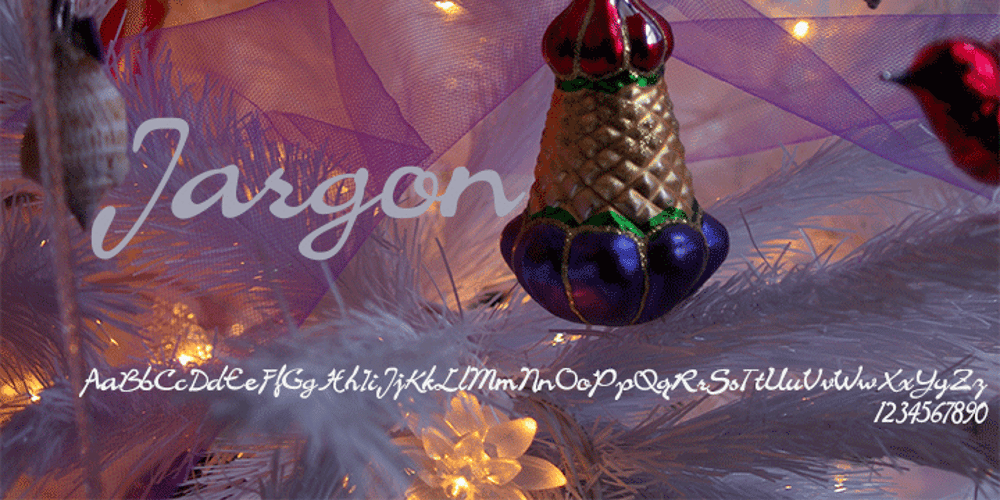
Jargon Pro Font Family was designed by David Bergsland and published by Hackberry Font Foundry. Jargon Pro contains 1 styles and family package options. This new OpenType pro font has 468 characters and glyphs. It is a massive redrawing of AeroScript. I have added nearly four dozen ligatures, small caps, oldstyle figures, small cap figures, and more.